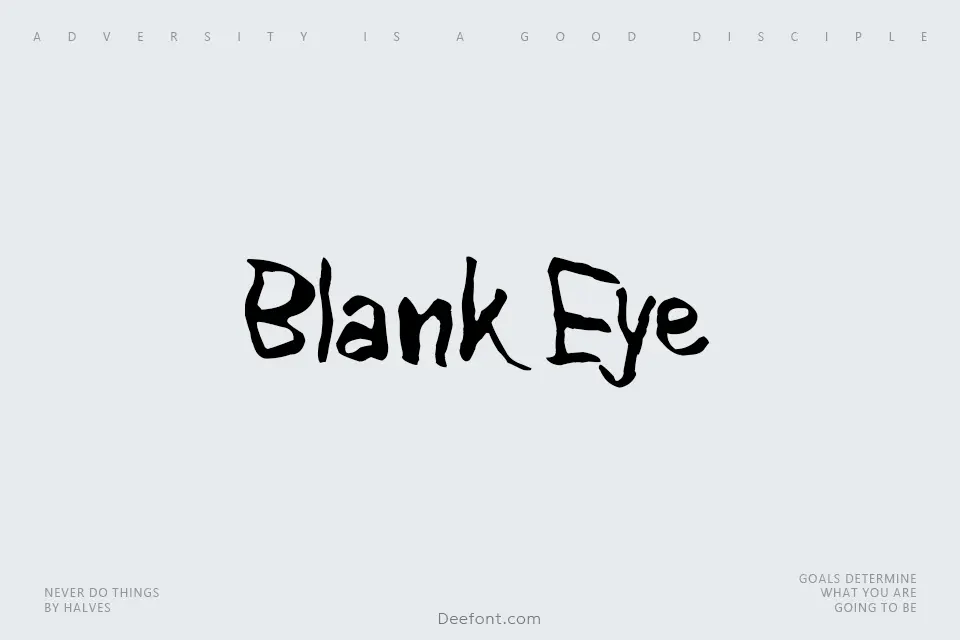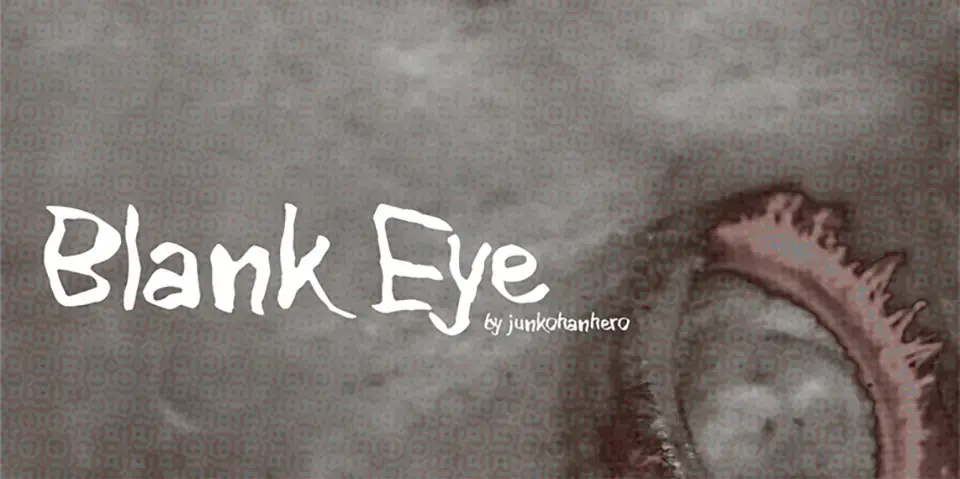
Blank Eye Font
Blank Eye is a captivating handwritten display font featuring bold, expressive brushstrokes and organic irregularities that evoke casual, hand-painted lettering. With its spontaneous energy and charming character variations, this typeface excels in poster design, headline applications, and decorative branding projects. The font’s free-flowing style brings personality to event promotion, party invitations, Halloween décor, and creative merchandise designs. Its 237 carefully crafted glyphs include accent characters and euro symbol support, making it versatile for multilingual projects.